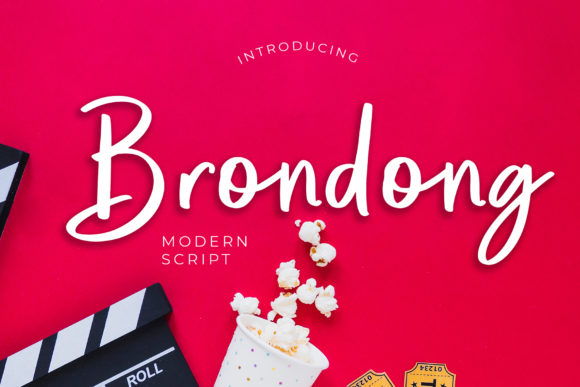
Dive into the world of Brondong, a script font family crafted with grace and artistry. This flowing handwritten typeface dances across your screens, adding a touch of elegance and sophistication to your creations. Let Brondong's enchanting style captivate your audience and leave a lasting impression.
With Brondong, you can effortlessly express your individuality. Its beautiful curves and organic shapes evoke a sense of spontaneity and joy, making it perfect for invitations, greeting cards, and social media posts. Let your words flow seamlessly, capturing the essence of your message with Brondong's captivating charm.
Harness the power of Brondong to elevate your branding and marketing materials. Its distinct and eye-catching style will make your logo, flyers, and brochures stand out from the crowd. Capture the attention of your customers and leave an indelible mark on their minds.
Unleash your creativity with Brondong and transform your designs into masterpieces. Whether you're working on web design, packaging, or product labels, Brondong's versatile nature allows you to effortlessly convey your message with style. Embrace the endless possibilities and let your imagination soar.